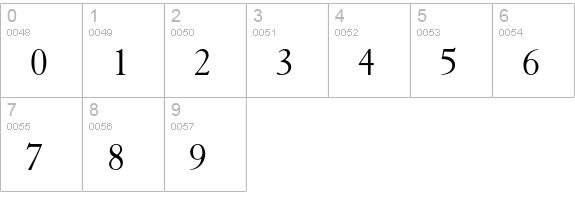
Granjon Roman is a classic serif typeface that exudes elegance and sophistication. Designed by renowned typographer Robert Granjon, this font is characterized by its refined letterforms and balanced proportions. Its timeless aesthetic makes it a versatile choice for a wide range of design projects, from editorial layouts to branding materials. Featuring sturdy serifs and graceful curves, Granjon Roman commands attention while maintaining a sense of subtlety and grace. Its clean lines and legible design make it ideal for both print and digital applications, ensuring readability across various mediums. Whether you're working on a book layout, a website design, or a marketing campaign, Granjon Roman is sure to elevate your project with its timeless appeal. And the best part? This exquisite font is available for free download at FontsMarket.com, making it accessible to designers and creators everywhere. Embrace the beauty and versatility of Granjon Roman in your next project and let its classic charm shine through.